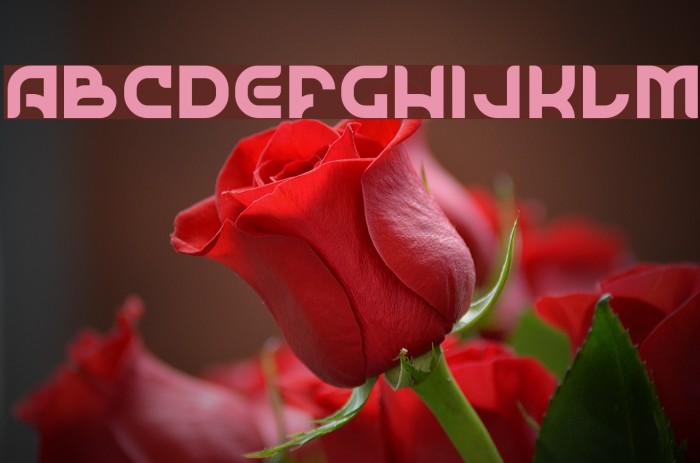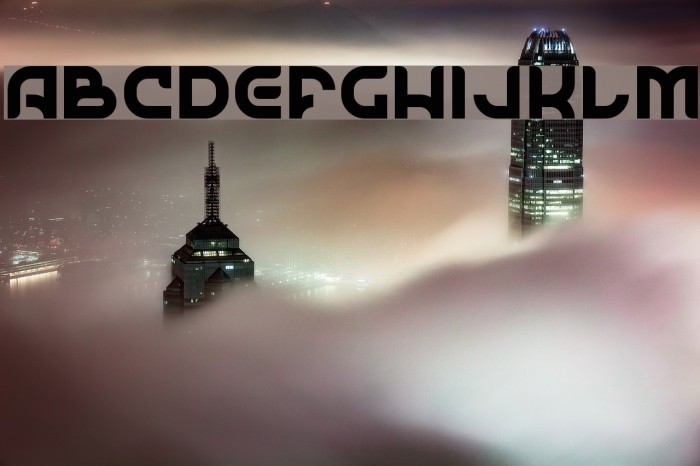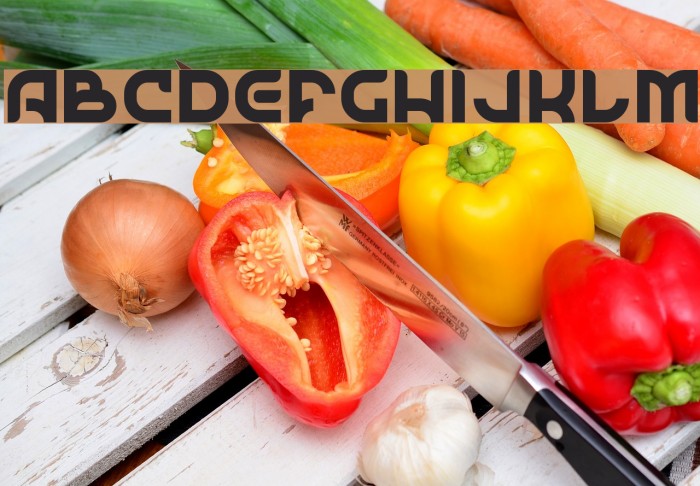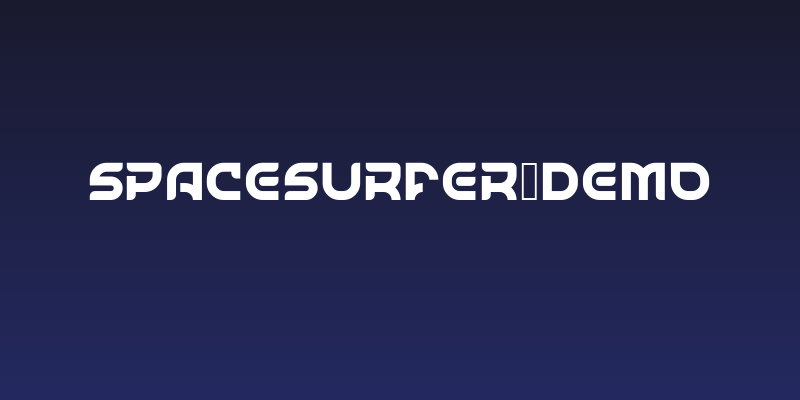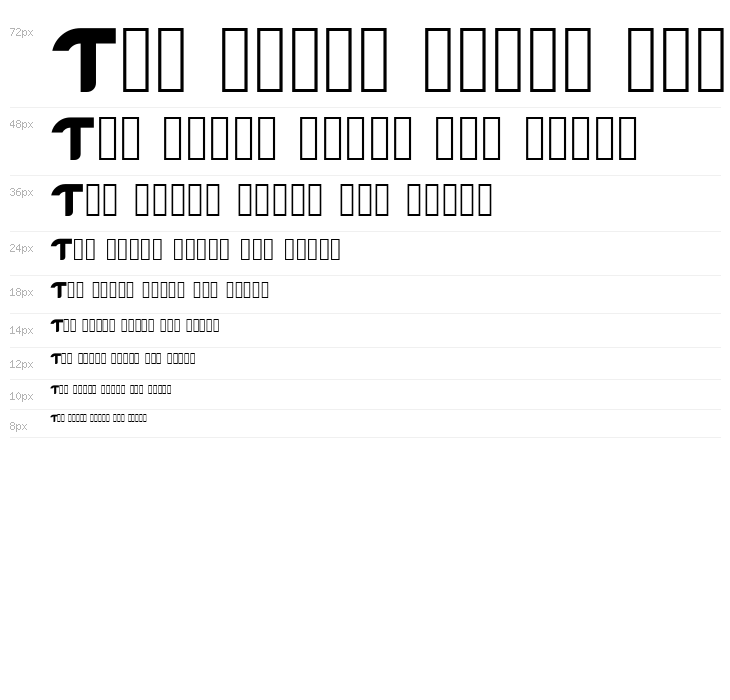
SpaceSurfer_Demo Font
SpaceSurfer_Demo Description
This font features a futuristic and bold design, characterized by its geometric shapes and sharp angles. The uppercase letters are distinct with a uniform thickness, giving a sense of stability and modernity. The lowercase letters maintain the same geometric style, ensuring consistency throughout the typeface. The numbers are clear and easily readable, designed to match the overall aesthetic. Special characters are included, each crafted to fit seamlessly with the rest of the set. The font's style is ideal for projects that require a modern and tech-forward appearance.
| Proposed Projects | Ideal for technology branding, sci-fi themed designs, video game interfaces, and modern advertising. |